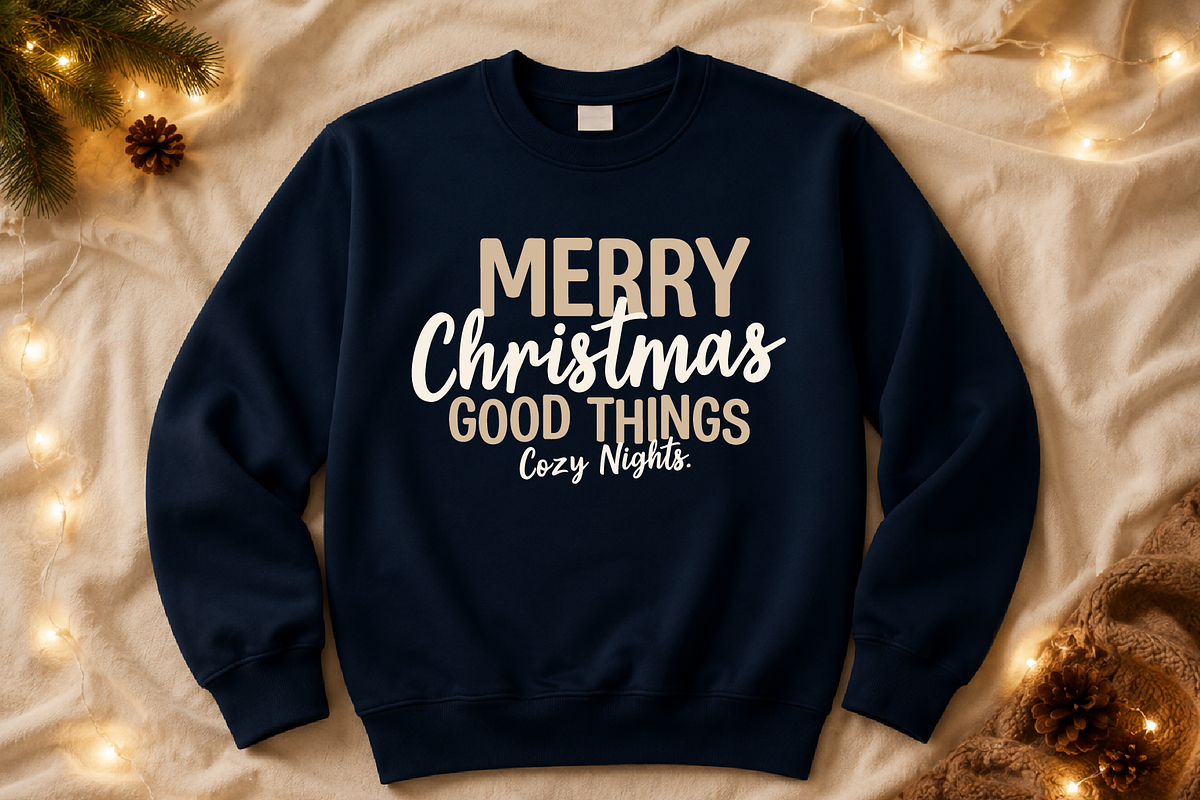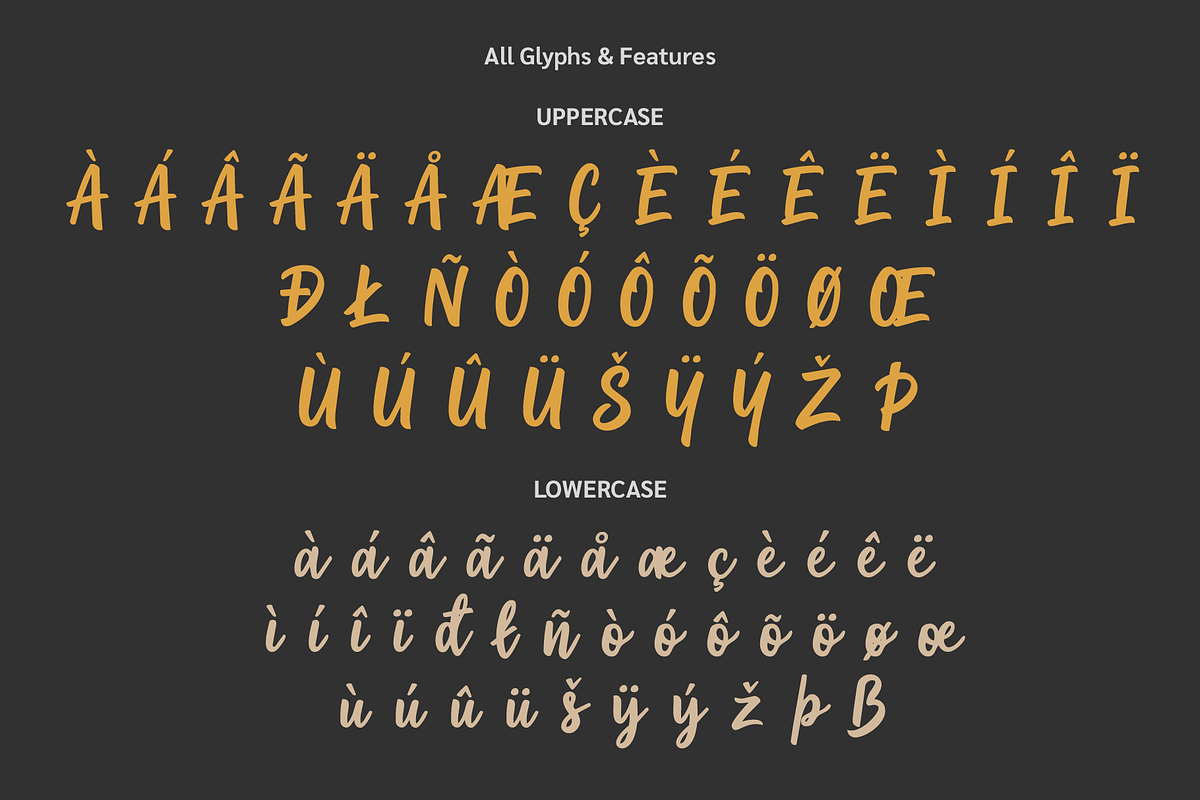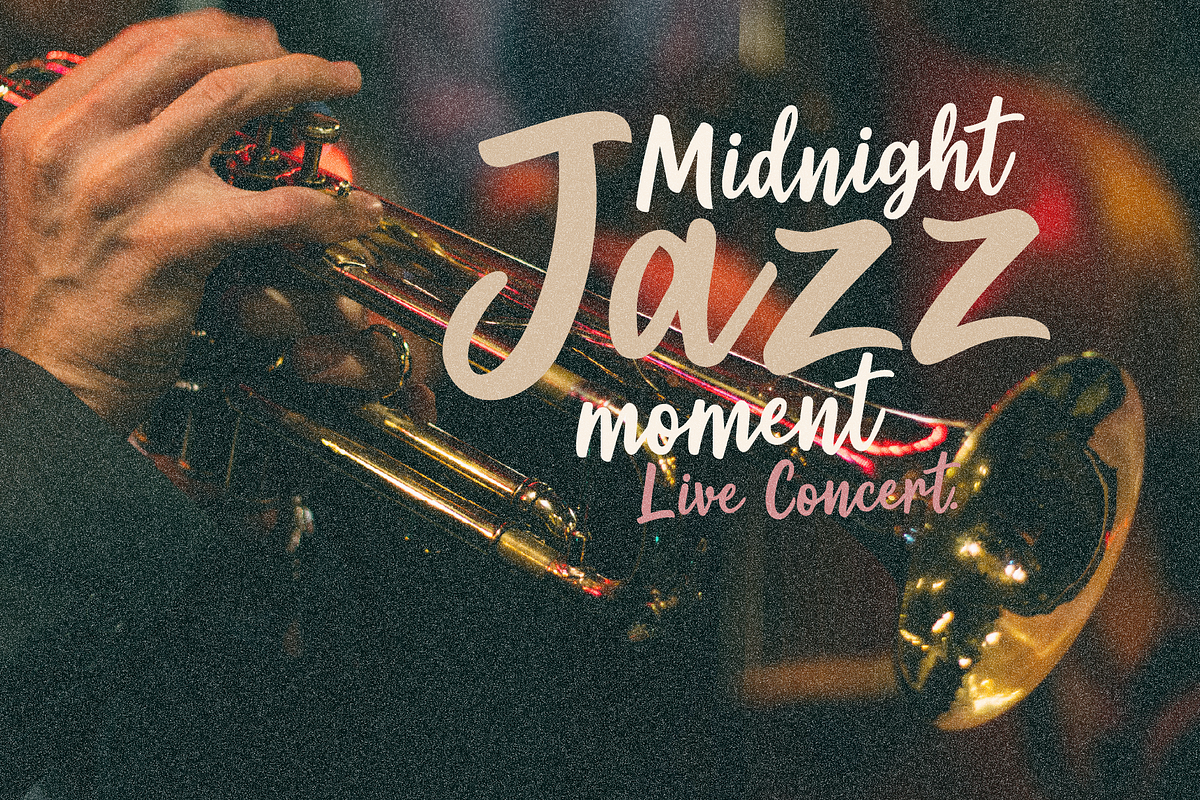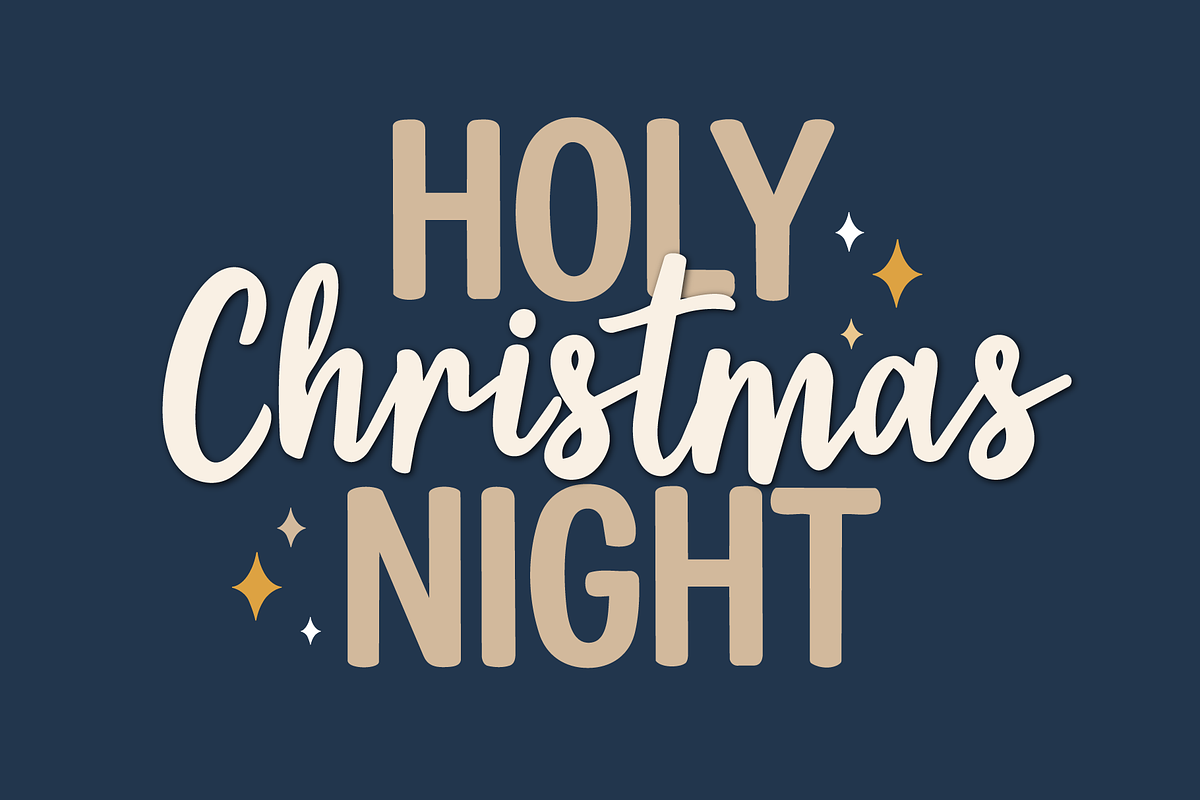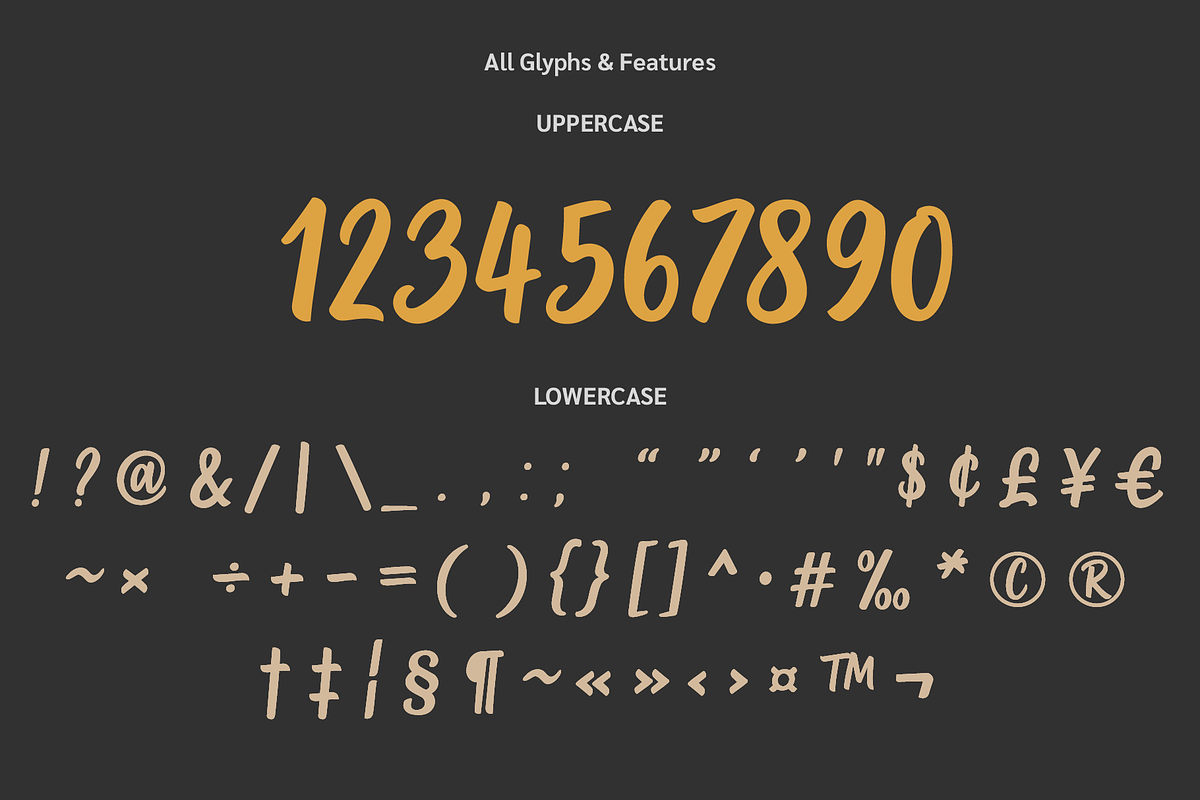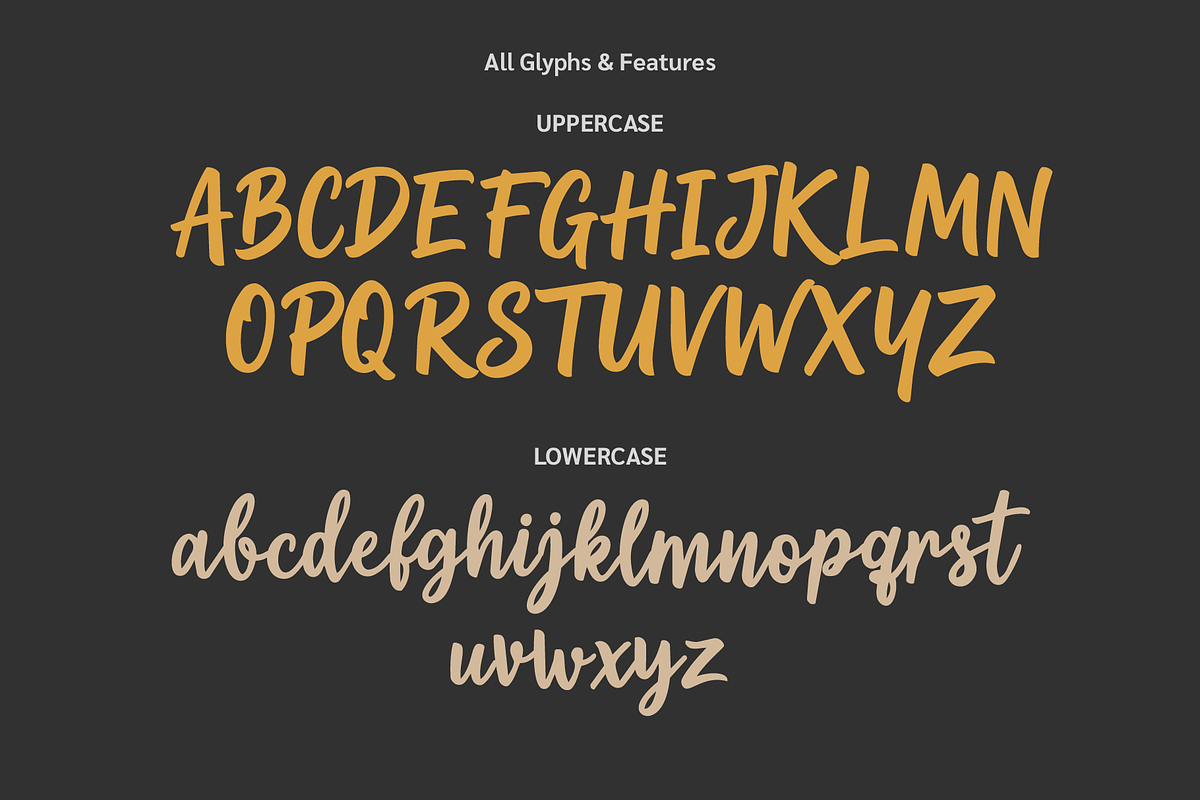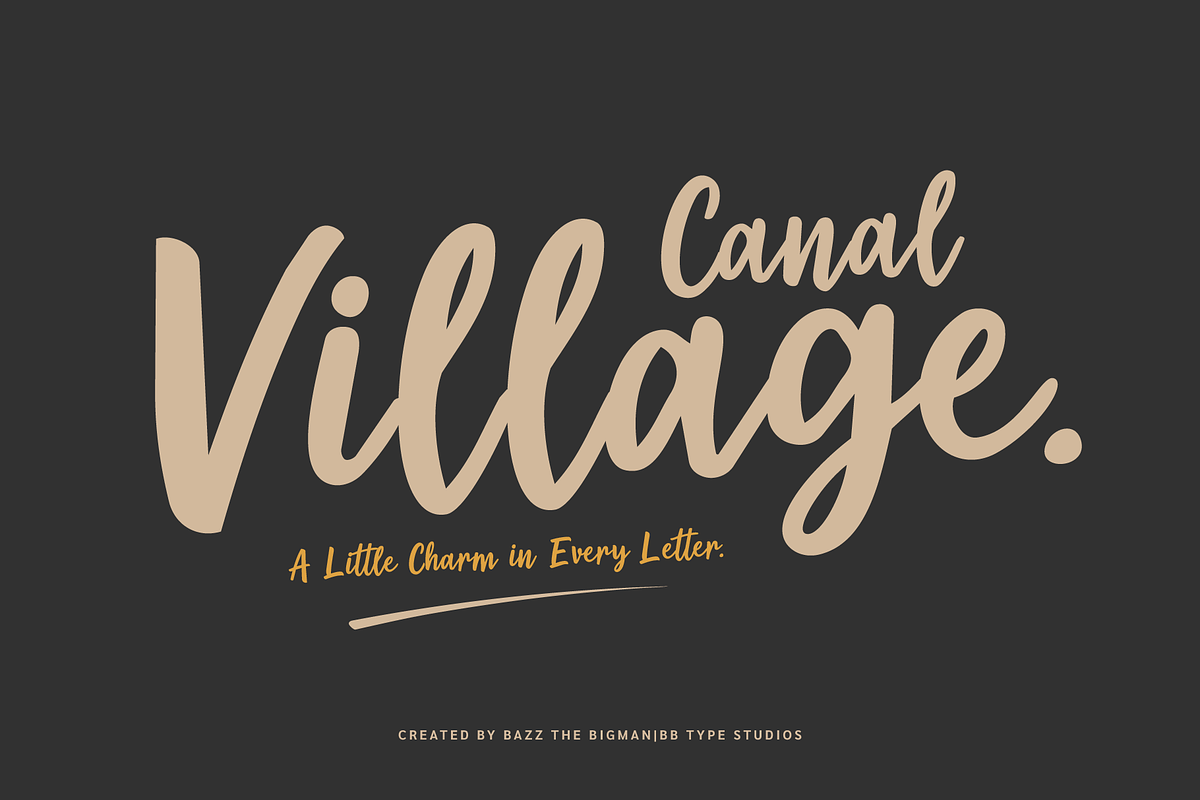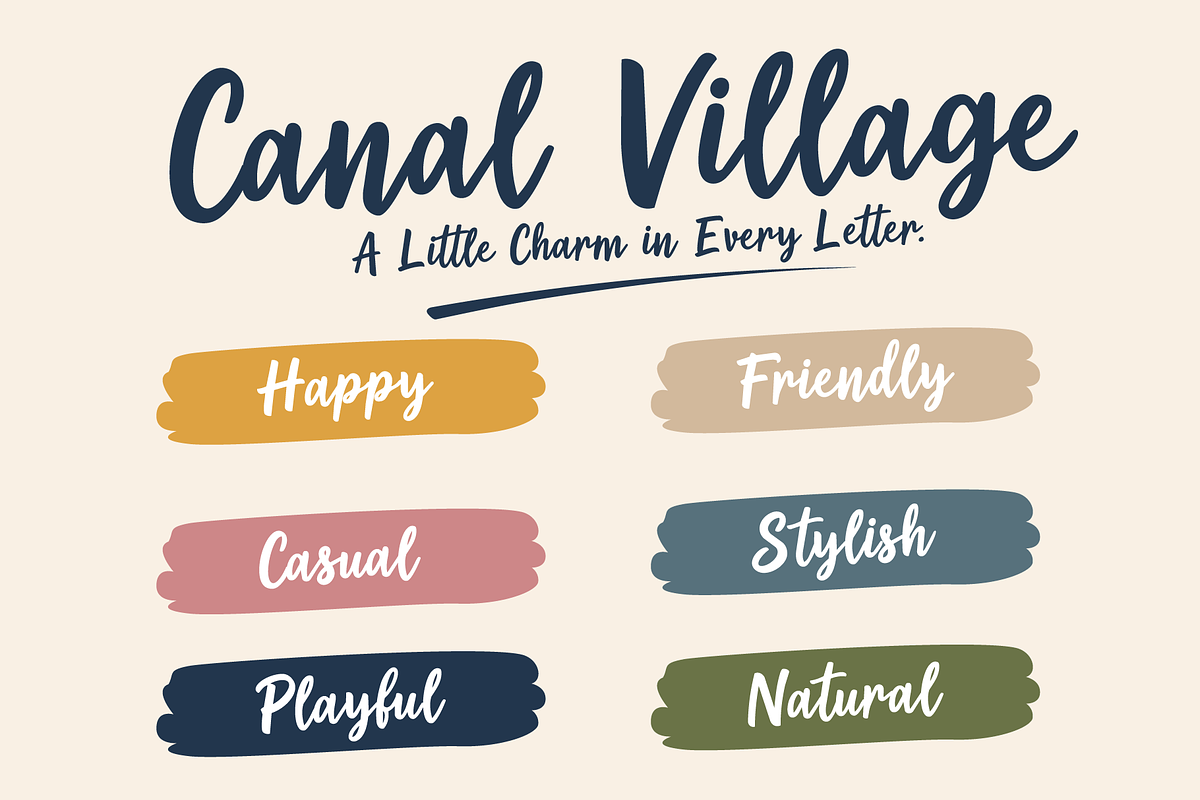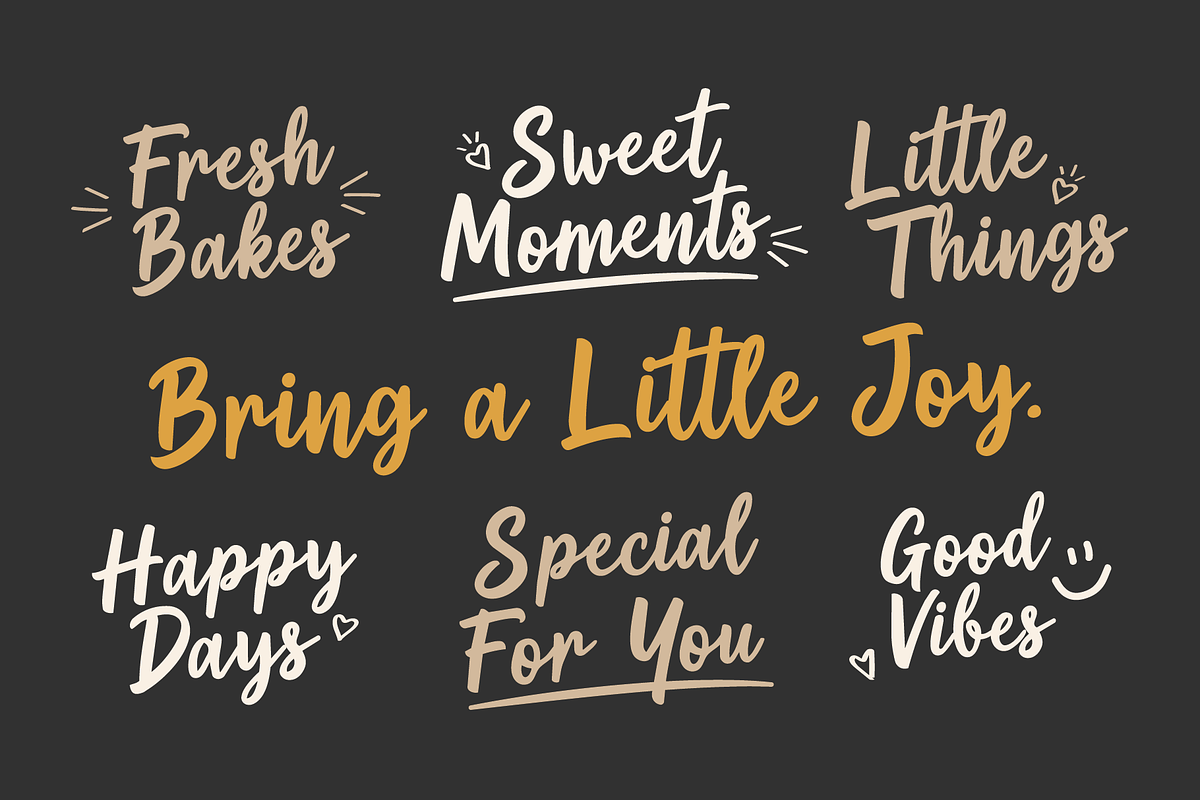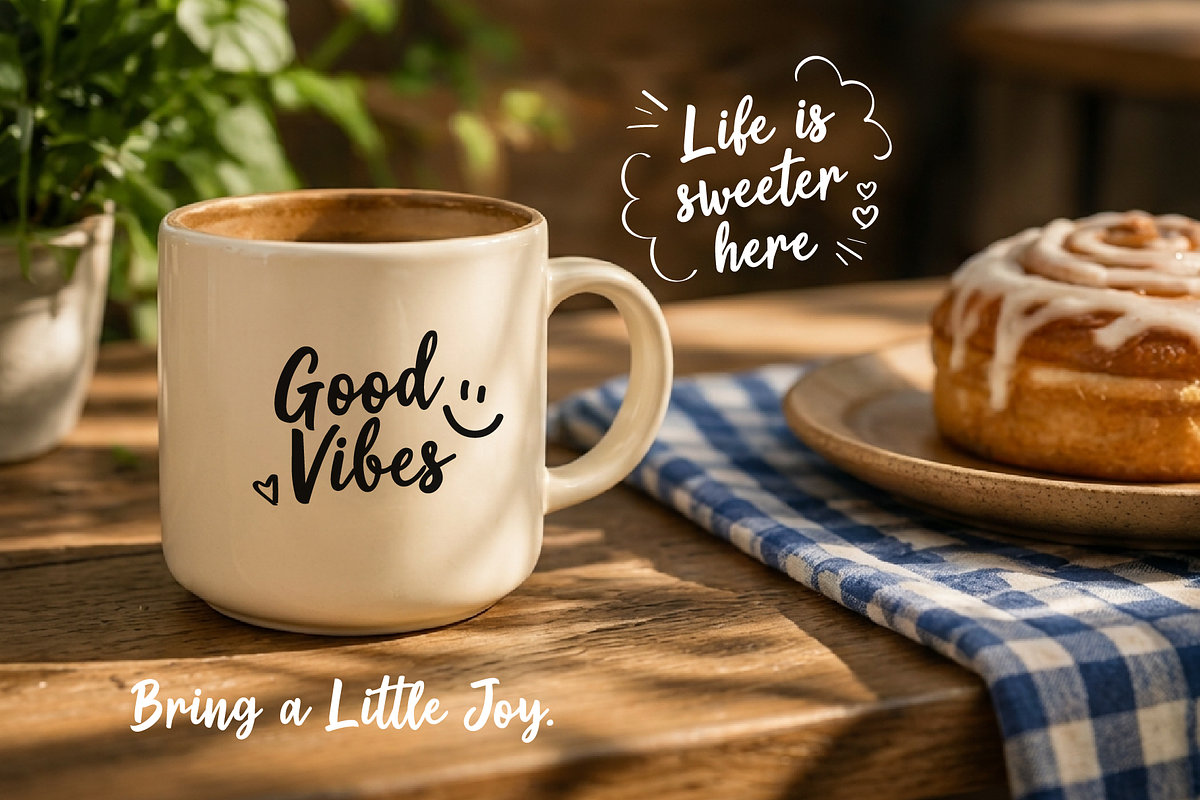
Canal Village
Canal Village is a warm, friendly, and stylish handwritten calligraphy font designed to bring a touch of cozy charm and playfulness to any creative project! With its bold, fluid strokes and smooth connections, this font perfectly balances modern casual style with a handcrafted, personal feel. Whether you are designing bakery packaging, cafe branding, cozy Christmas apparel, jazz concert posters, or stylish fashion quotes, Canal Village adapts seamlessly to elevate your design with effortless elegance.
Full Set of Uppercase and Lowercase Letters
Numbers, Punctuation & Symbols
Multilingual Support (Supports Western & Central European languages)
PERFECT FOR:
Bakery & Food Packaging (Coffee mugs, pastry boxes, menus)
Seasonal & Holiday Designs (Christmas cards, sweater prints, gift tags)
Fashion & Lifestyle Branding (Posters, magazine headlines, apparel)
Event Stationery & Quotes (Weddings, jazz concerts, friendly greeting cards)